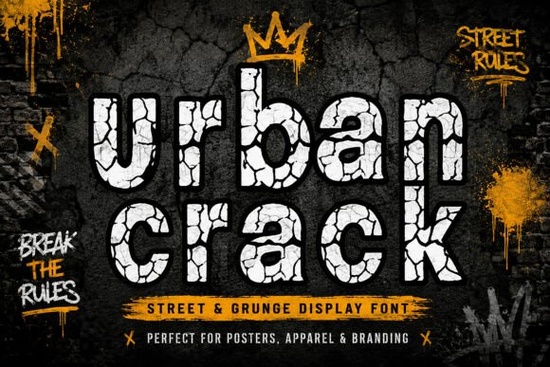
If you need a typeface that looks like it belongs on a city wall or a gritty concert flyer, Urban Crack is worth a close look. This street and grunge display font has a cracked texture built into every letter, giving your text a weathered, rebellious feel without any extra editing. It works well for posters, apparel graphics, social media posts, album covers, and any project that needs a raw, urban edge.
What Makes This Font Different From Other Grunge Typefaces?
Most grunge fonts rely on rough edges or splatter effects. Urban Crack takes a different approach with a cracked texture that runs through each character. This gives the font a rugged, worn-in look like text that has been through years of exposure on concrete or brick.
The font is designed as a display typeface, which means it works best at larger sizes. Think headlines, logos, banners, and featured text rather than long paragraphs. At small sizes, the cracked details can get lost, so keep it big and bold.
Compared to more playful options like rounded display fonts for kids' projects or classroom-friendly typefaces, Urban Crack leans heavily into street culture. It is not trying to be cute or approachable. It is designed to be loud and attention-grabbing.
Where Does This Font Work Best?
Urban Crack fits naturally into projects connected to streetwear, music, nightlife, sports, and urban lifestyle brands. Here are some specific uses:
- Apparel graphics T-shirt designs, hoodies, and streetwear labels
- Music projects Album covers, concert posters, and playlist graphics
- Social media content YouTube thumbnails, Instagram stories, and promotional posts
- Event promotions Festival flyers, club night posters, and brand launch materials
- Print-on-demand products Mugs, phone cases, and stickers with a grunge theme
- Branding Logos and packaging for urban-style businesses
If you run a print-on-demand shop, this font can help your designs stand out in a crowded marketplace. The cracked texture adds visual interest that plain fonts just cannot match.
How Does It Compare to Other Display Fonts?
If you are browsing for display fonts and want something with personality, it helps to compare a few options. Urban Crack sits in the grunge and street category, but there are other styles worth exploring:
Each of these serves a different mood and audience. Urban Crack is the right choice when your project calls for grit, attitude, and street authenticity. If you are curious about how cracked and distressed typefaces fit into broader grunge design trends, there is a long history behind this aesthetic.
Tips for Getting the Most Out of Urban Crack
A few practical suggestions for working with this font:
- Keep it large. The cracked texture shows best at bigger sizes. Avoid using it for body text or anything below 24pt.
- Pair it with a clean font. Use a simple sans-serif for supporting text so Urban Crack stays the focal point.
- Try dark backgrounds. The texture pops on dark or textured backgrounds, especially with light-colored text.
- Test different colors. White, neon, and metallic tones all work well with the grunge aesthetic.
- Use it for emphasis. One or two words in this font next to a clean typeface creates a strong contrast.